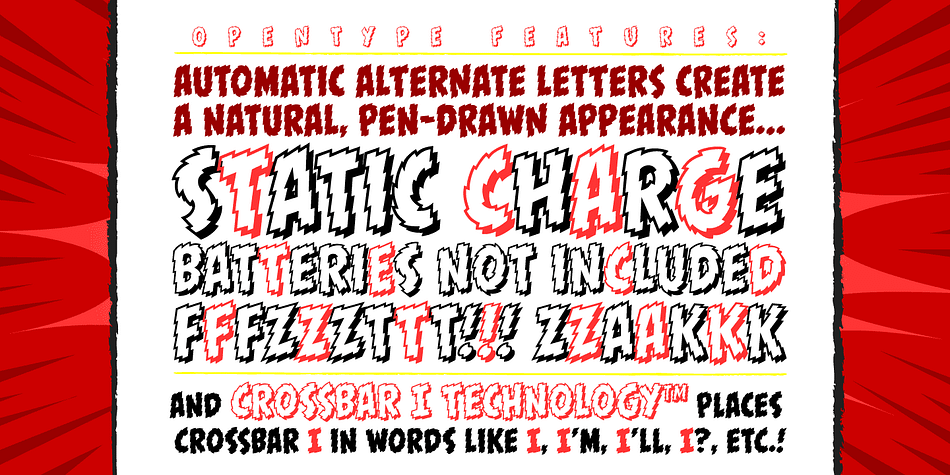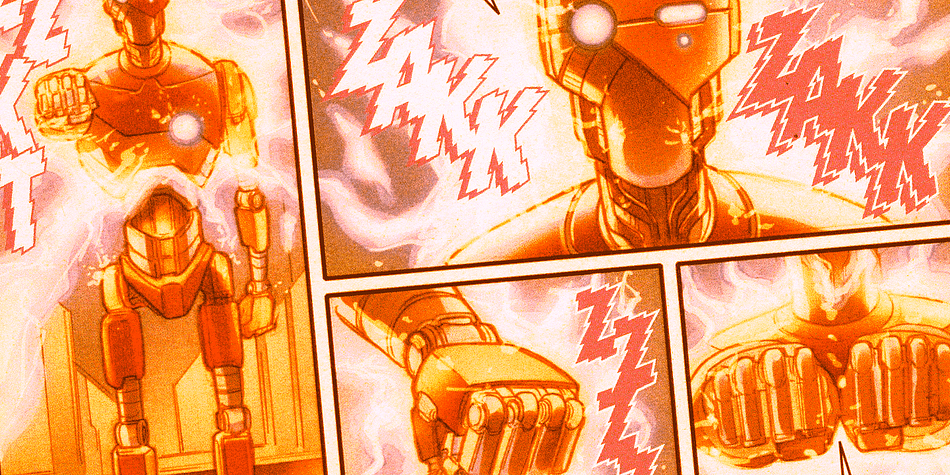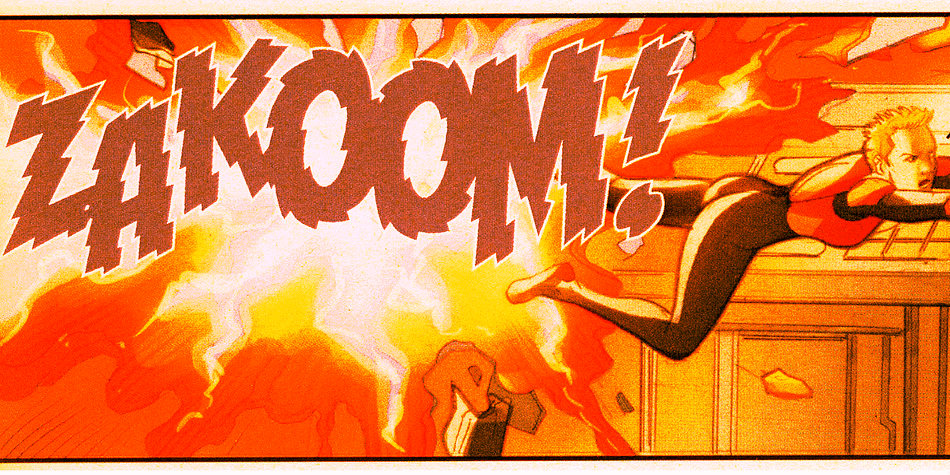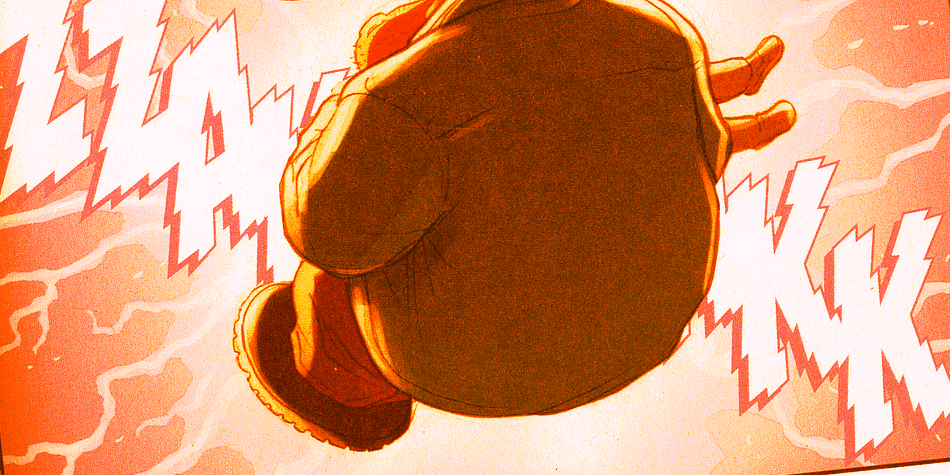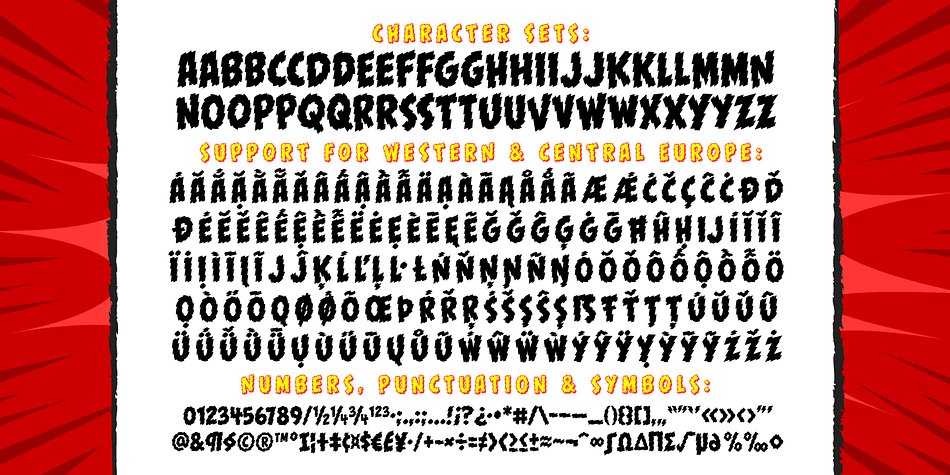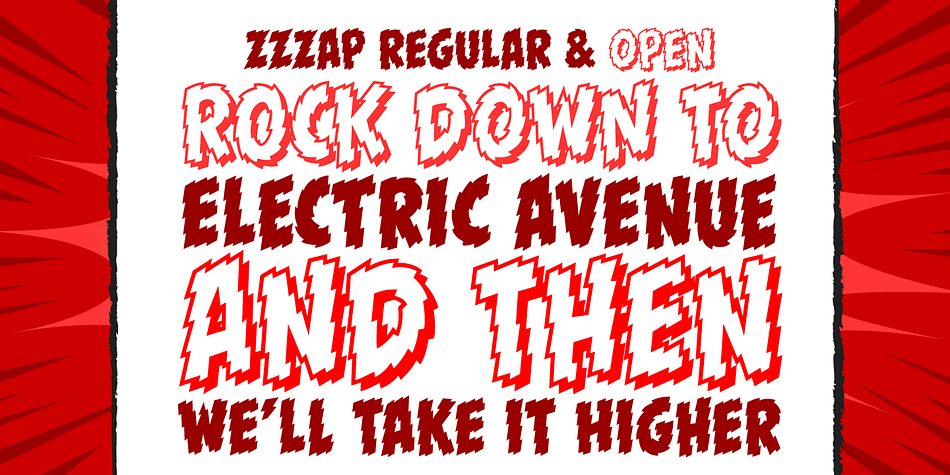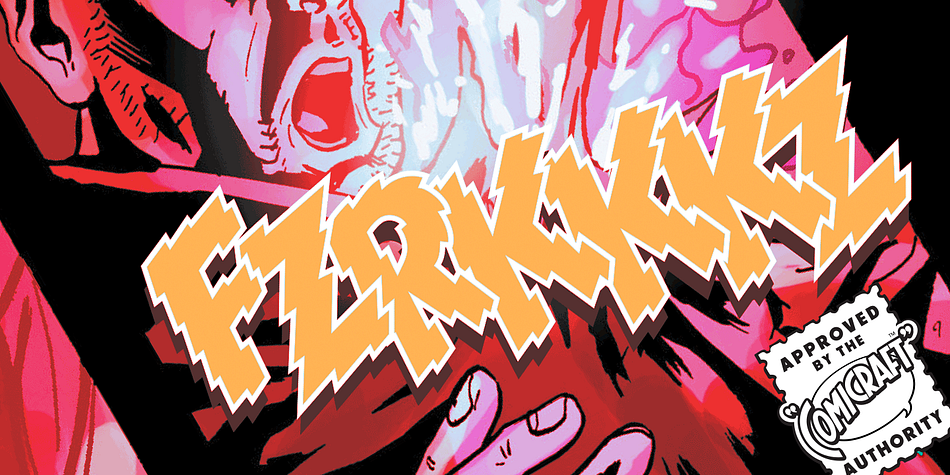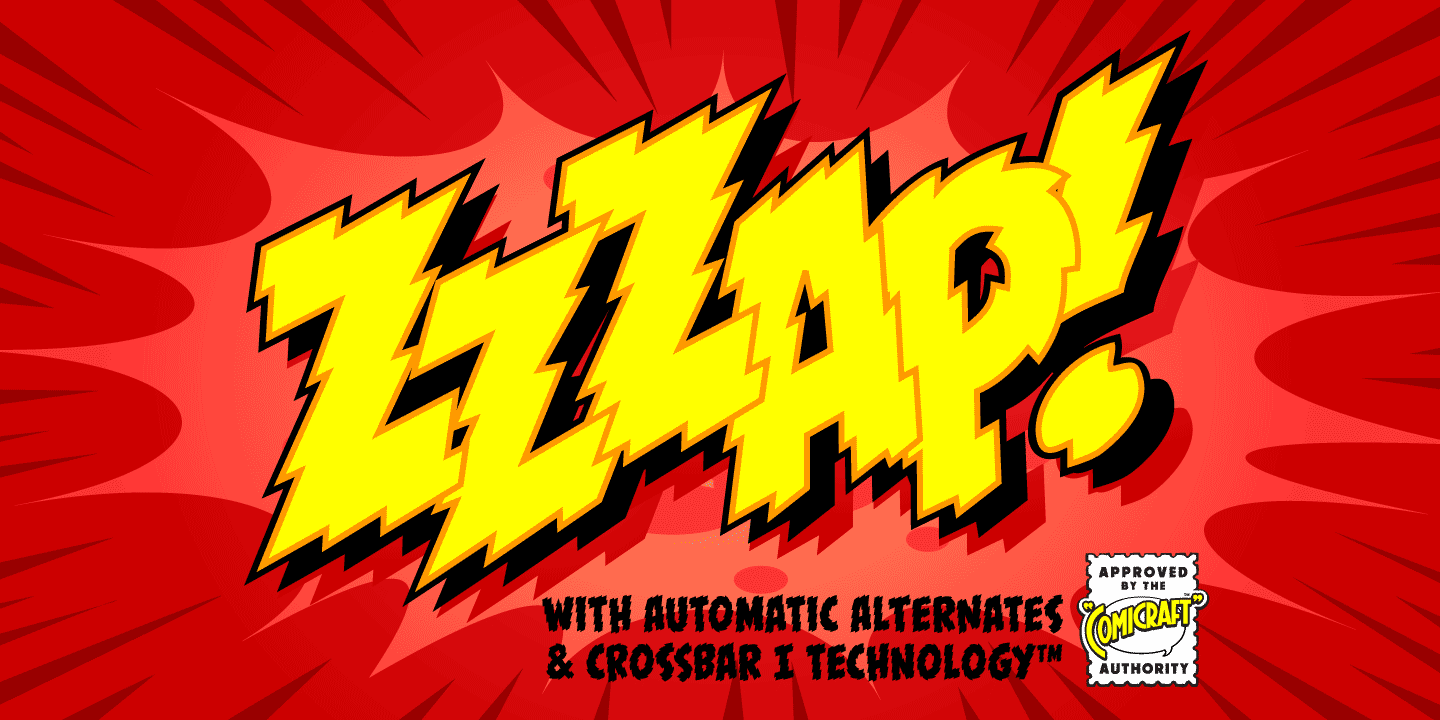
Designed by John Roshell, Zzzap is a comic and novelty font family. This typeface has two styles and was published by Comicraft.
Run your hand under the tap and then thrust your fingers in the electrical outlet nearest to you* and you’ll get the same effect that our latest release, ZZZAP will have on comic book readers everywhere when Electro, The Shocker, Black Lightning, Storm and Darth Sidious turn the dark side of the force on them.